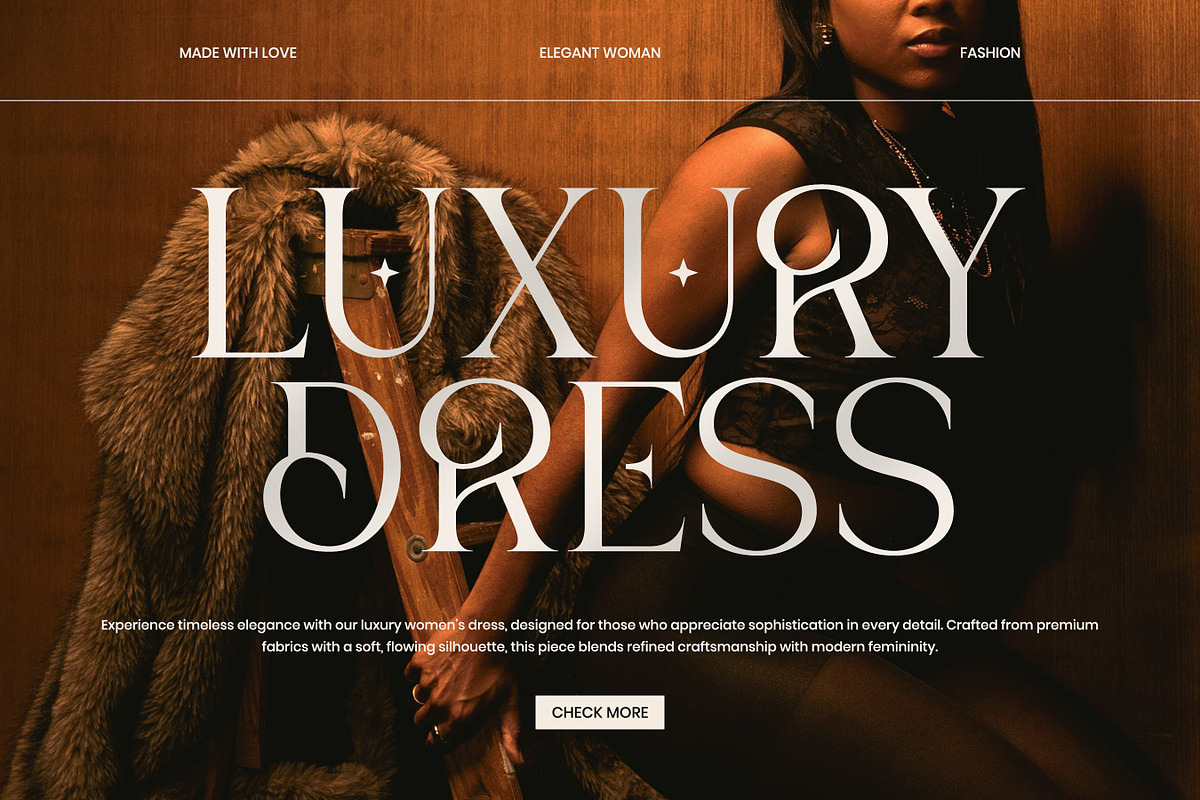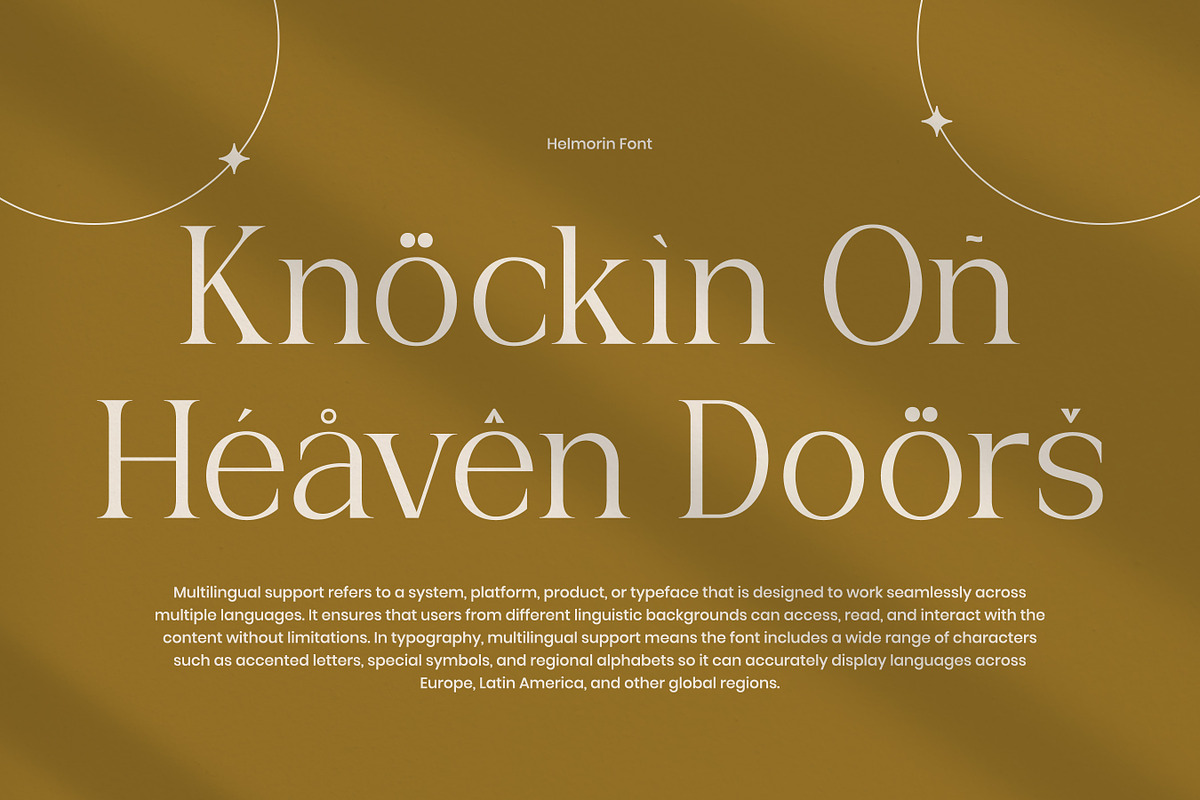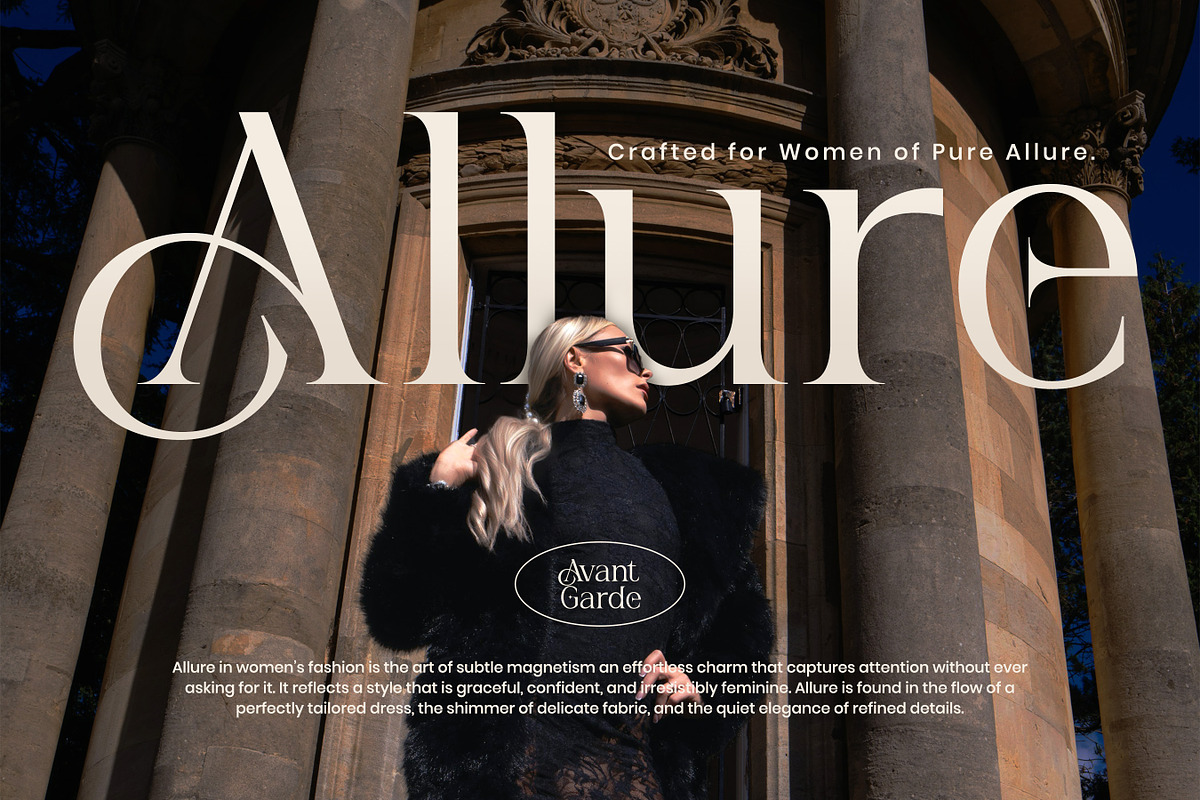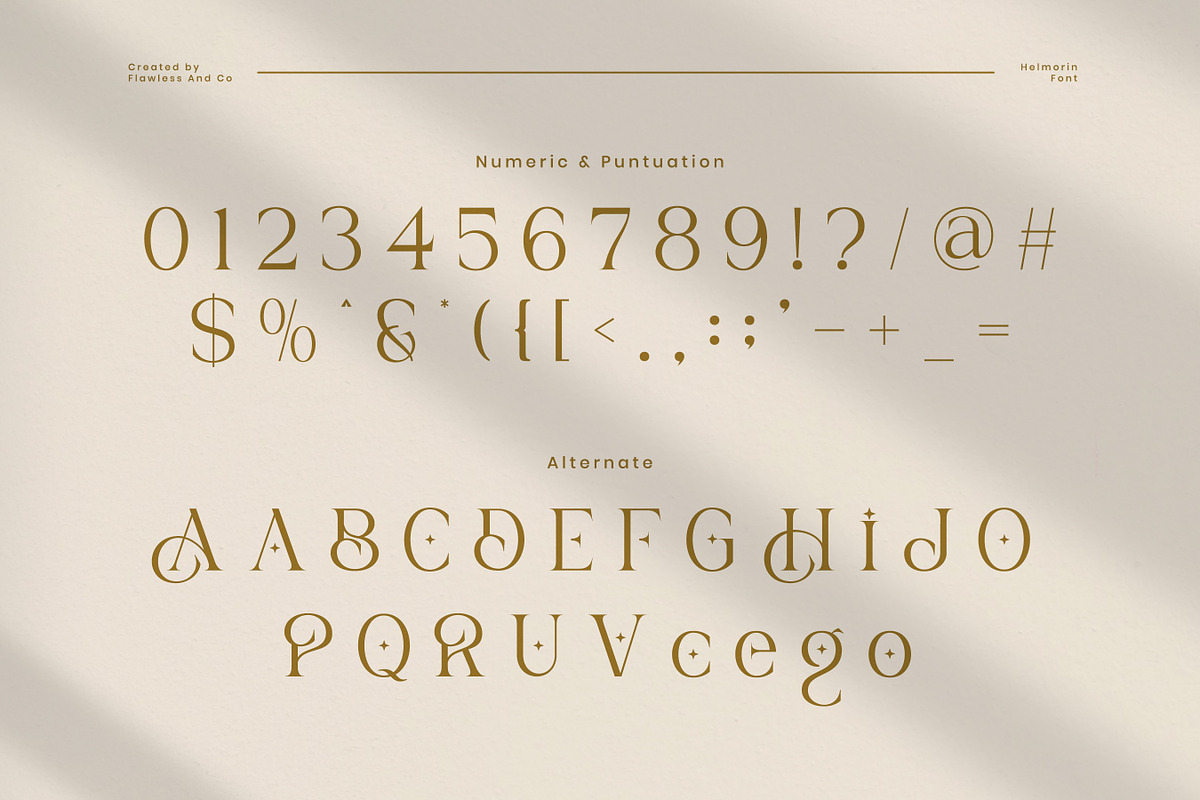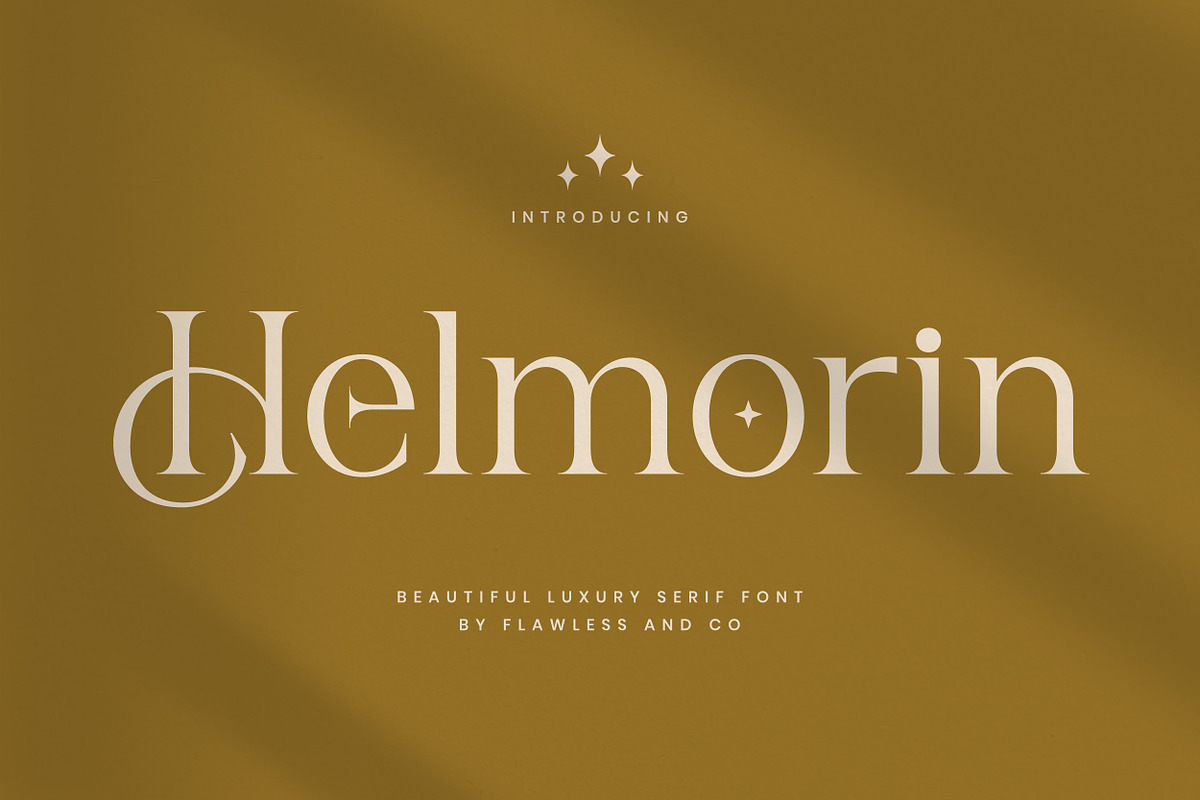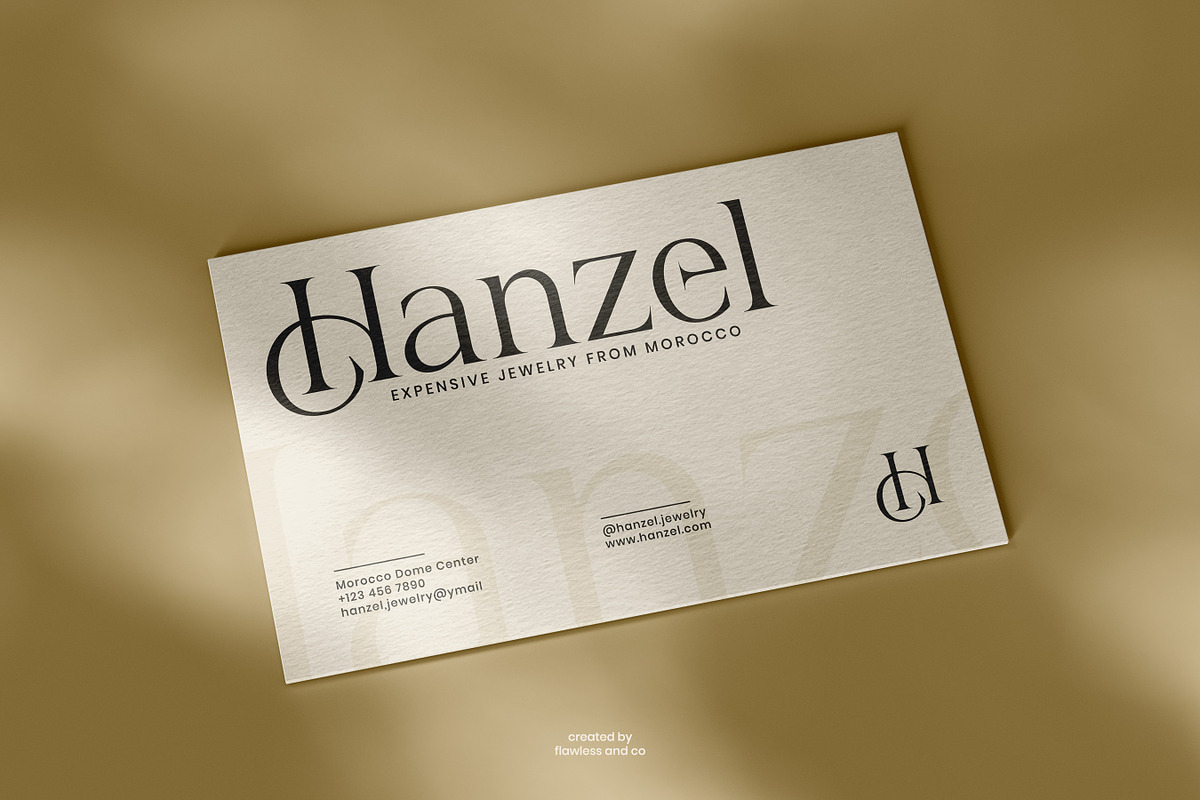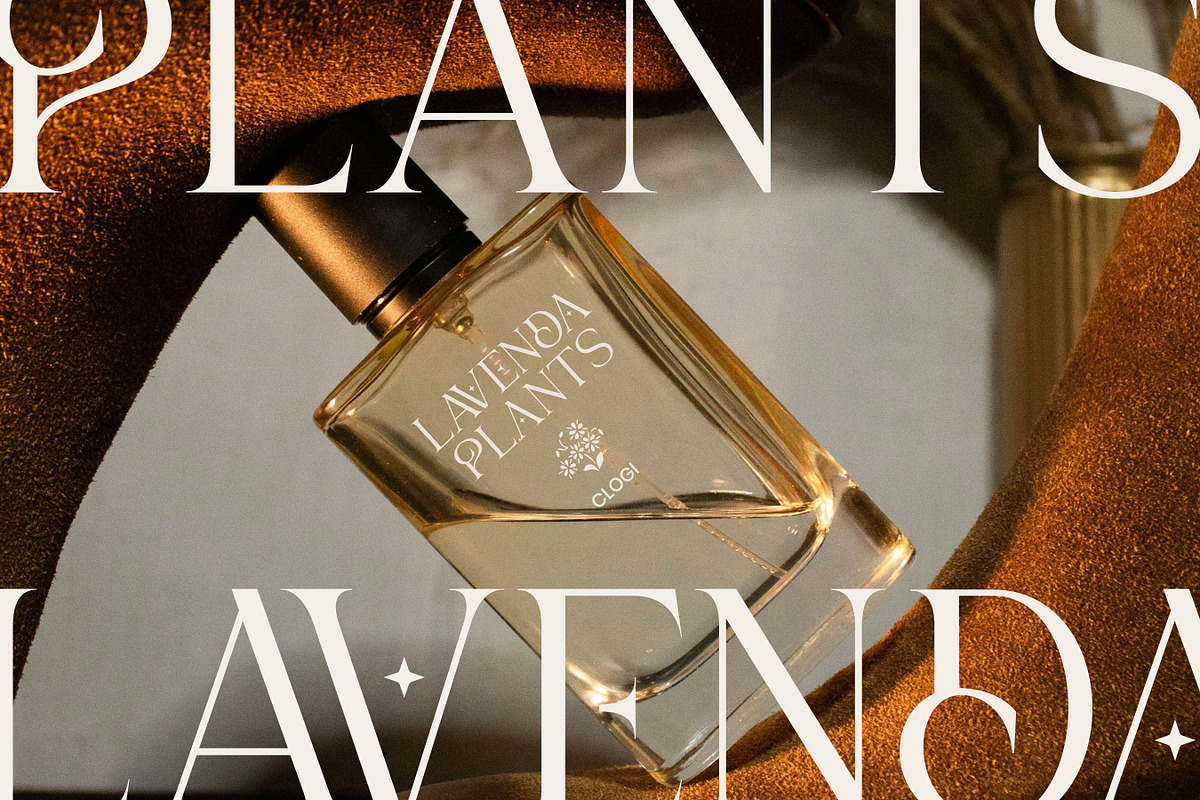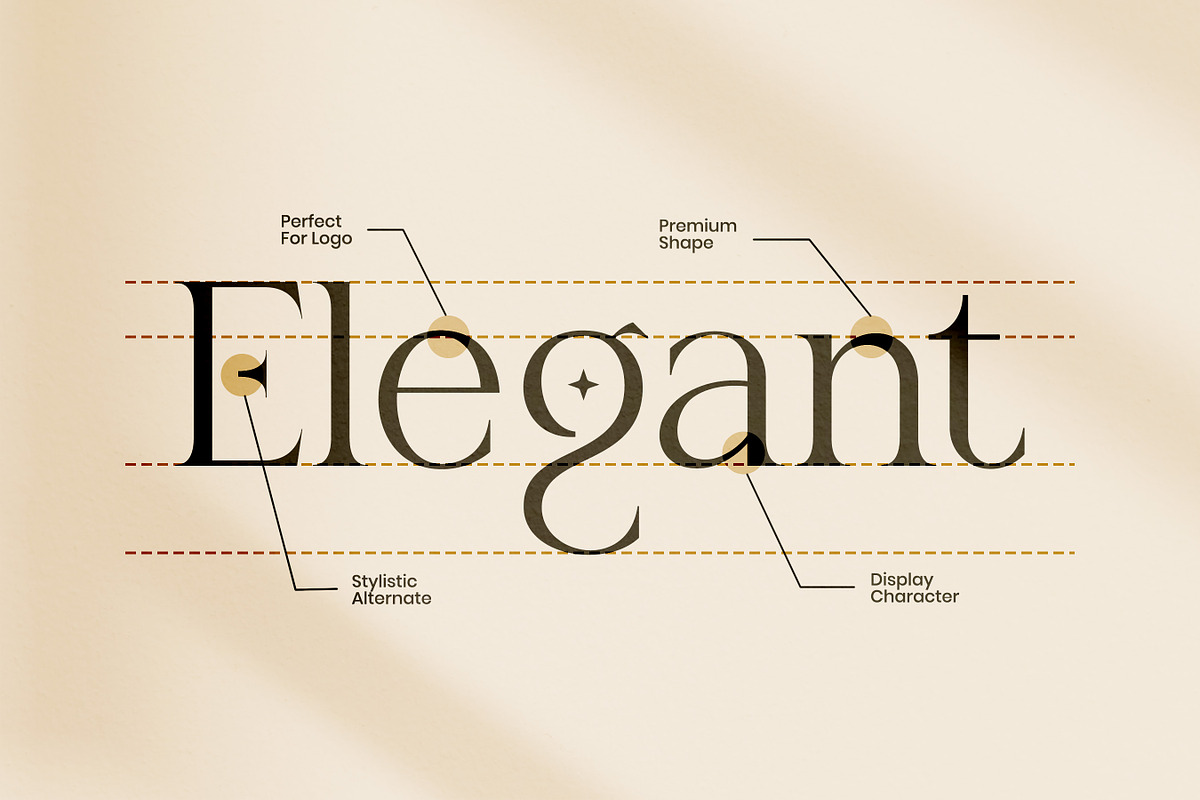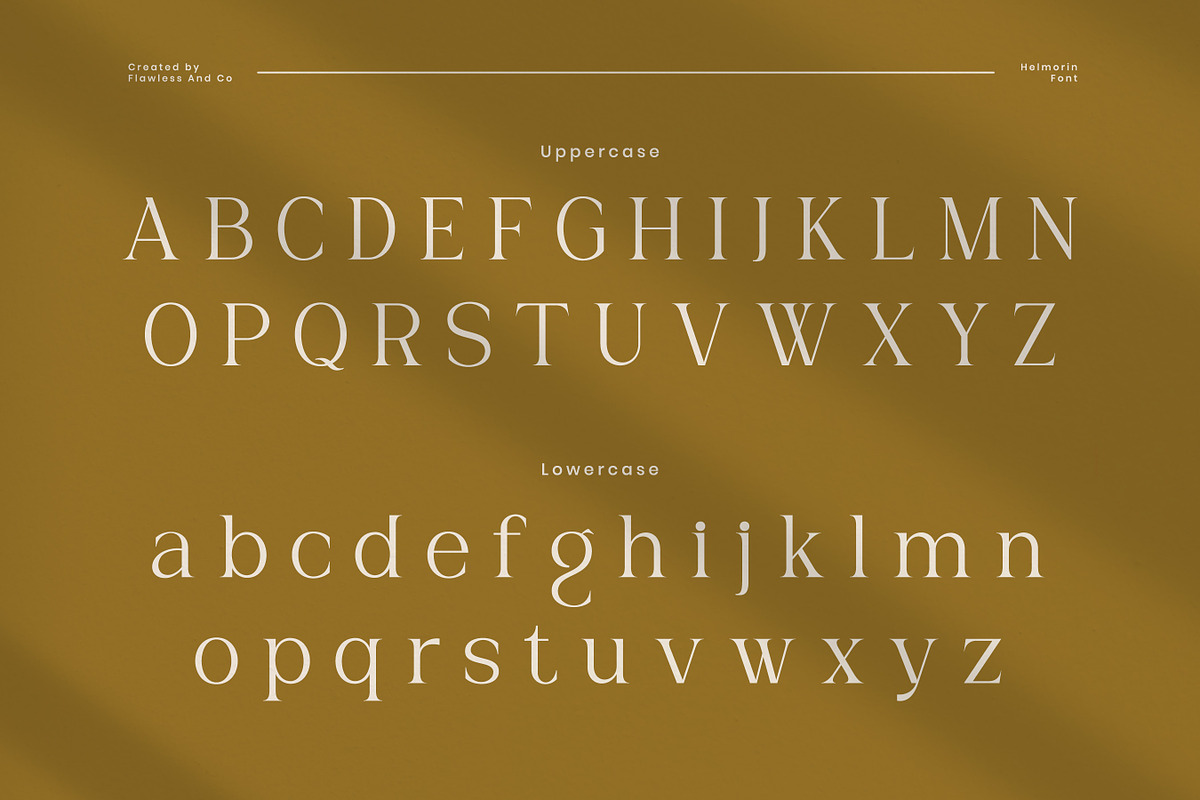
Helmorin - Beauty Serif Font
Helmorin – Beautiful Luxury Serif Font
Helmorin is a refined luxury serif font designed to bring a touch of timeless elegance to every creative project. Featuring graceful curves, distinctive ligatures, and subtle high-contrast strokes, Helmorin embodies sophistication without losing readability. Whether you are creating high-end branding, fashion visual identities, wedding stationery, packaging for luxury goods, editorial layouts, or upscale social media content, Helmorin becomes the ideal typographic signature. Its unique ornamental letterforms add glamour and exclusivity, making every word feel iconic and memorable.
Who Should Use “Helmorin”?
Helmorin is perfect for designers and creatives who want to bring a luxurious and timeless look to their work. It’s especially great for branding and logo projects, fashion and beauty designs, wedding and event themes, luxury packaging, editorial and magazine layouts, as well as premium business identities. Whether you're a designer, entrepreneur, or content creator, Helmorin helps you achieve an elegant, classy, and unforgettable visual style with ease.
A Must-Have Font for Brand and Logo Creators and Designers
Helmorin isn’t just a serif font — it is a statement of luxury and refinement Its graceful curves, sharp details, and premium letterform construction make it a powerful asset for any designer focused on elegance-driven branding. With Helmorin, every logo becomes more iconic, every headline more captivating, and every visual identity more memorable. The font carries an upscale character that instantly elevates a brand's perception — making it perfect for businesses that want to look prestigious, artistic, and exclusive.
Why Choose Helmorin for “Brand and Logo” Projects?
Helmorin offers a luxurious serif style that makes any brand look classy and high-end. Its elegant curves and refined shapes are perfect for creating memorable logos, premium packaging, and stylish branding visuals. With a clean yet sophisticated look, Helmorin works beautifully for fashion, beauty, jewelry, boutique, and any project that needs a touch of elegance and exclusivity.
Suitable For
- Branding & Visual Identity
- Logo Design
- Luxury Packaging
- Wedding Invitations
- Fashion & Beauty Projects
- Magazine & Editorial Layouts
- Business Cards & Stationery
- Social Media Posts & Advertisements
- Jewelry & Boutique Branding
- Premium Product Labels